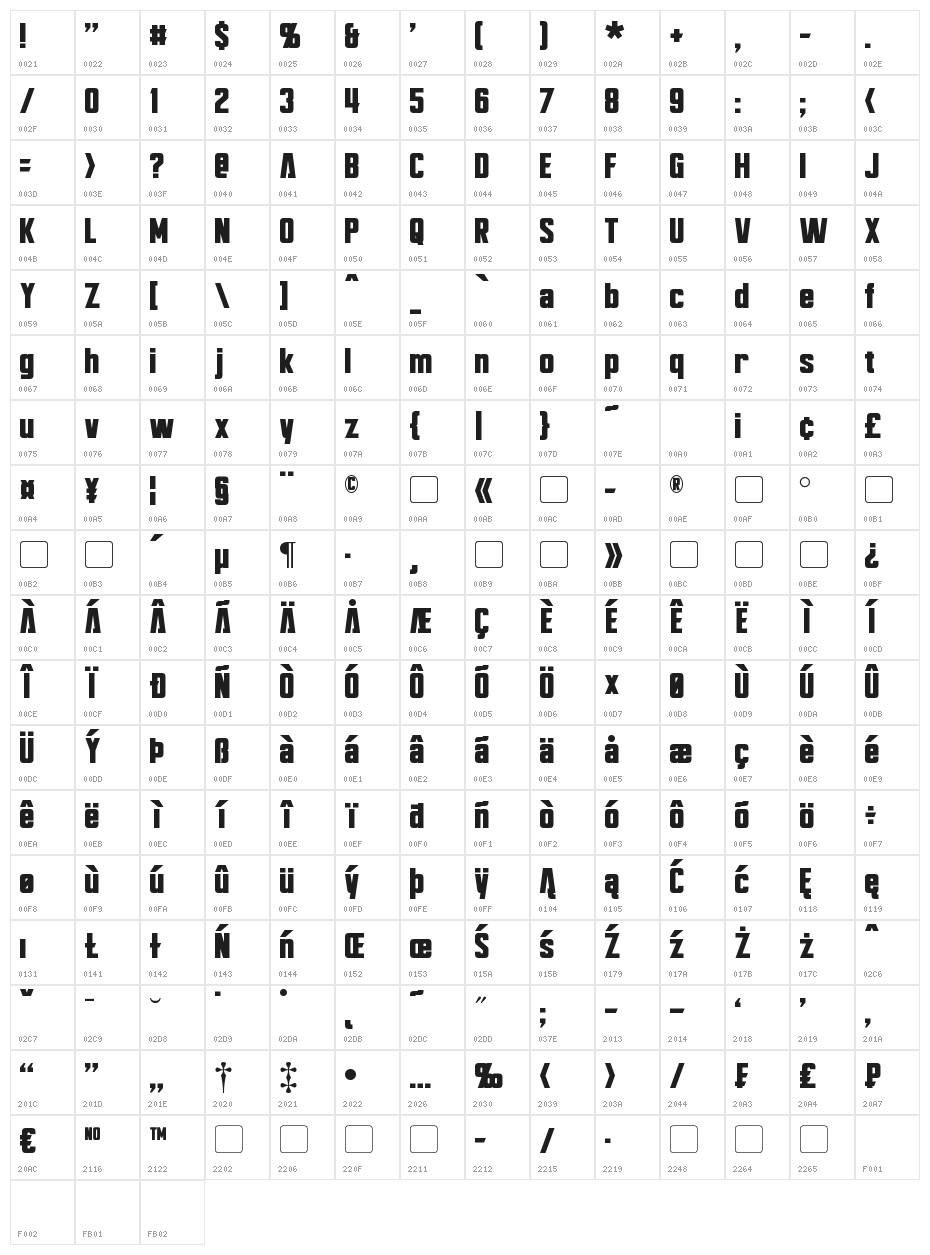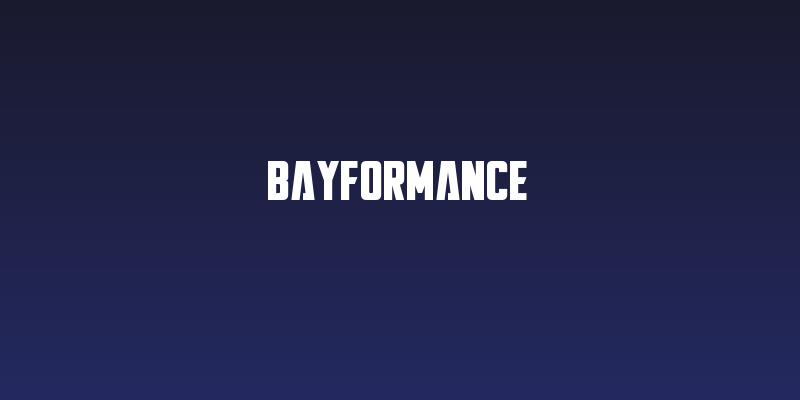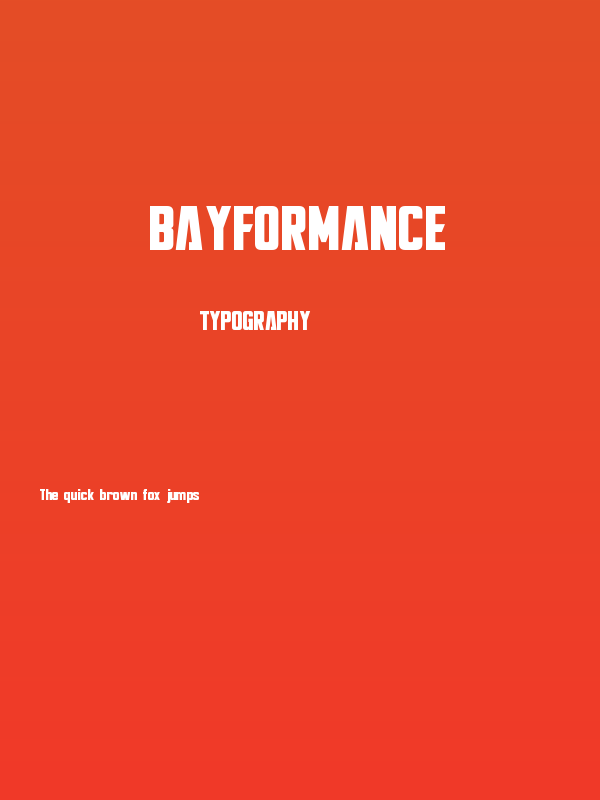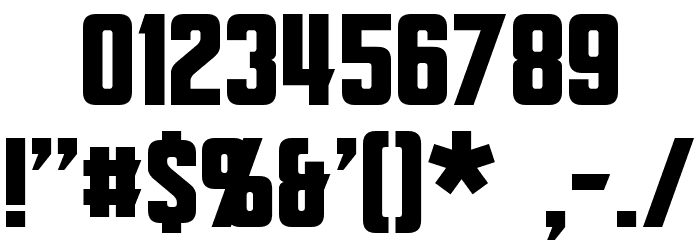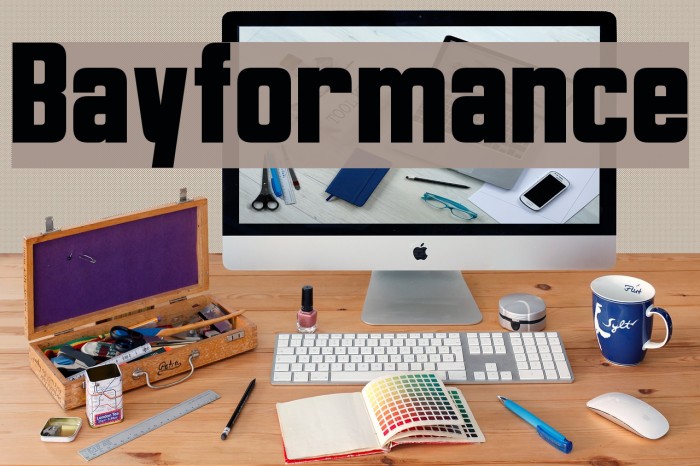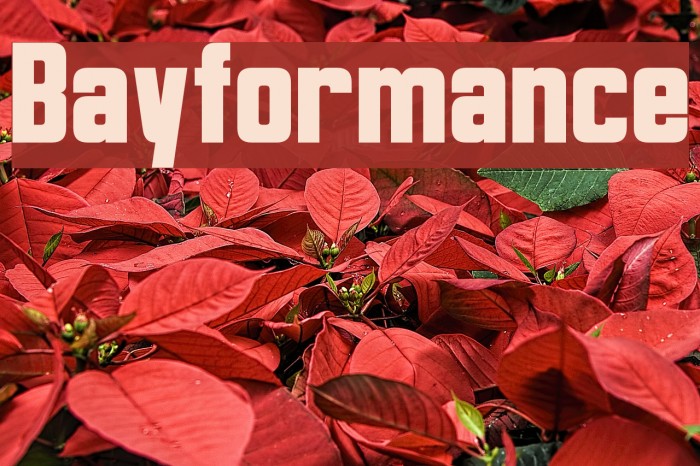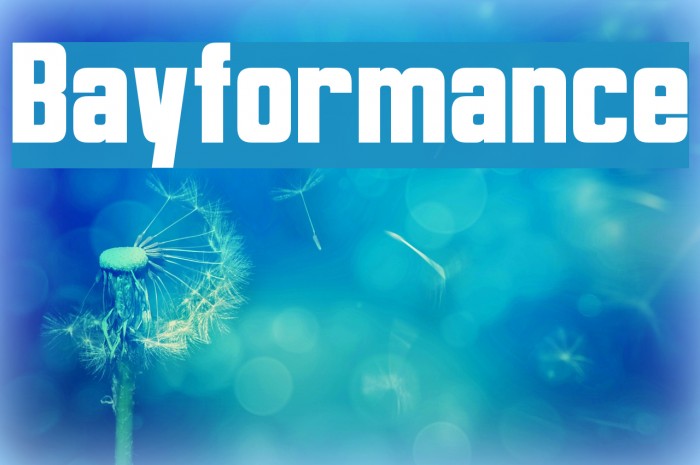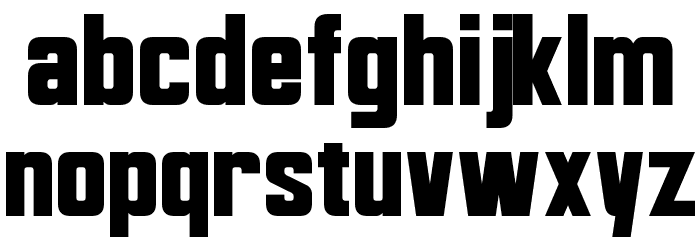
Bayformance Font
Bayformance Description
This font exhibits a bold and assertive style, characterized by its thick, block-like letters that convey strength and impact. The uppercase and lowercase letters maintain a consistent width, contributing to a uniform appearance. The numbers and special characters are designed with the same boldness, ensuring cohesiveness across all elements. The font's geometric shapes and sharp edges give it a modern and industrial feel, making it suitable for projects that require a strong visual presence. Its high contrast in stroke thickness adds to its readability and visual appeal.